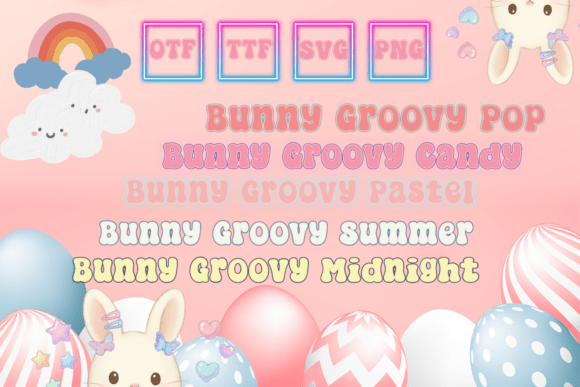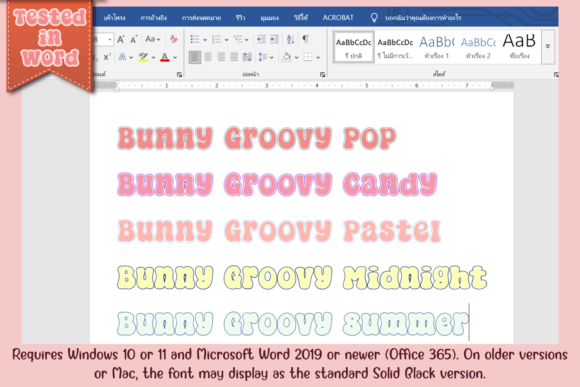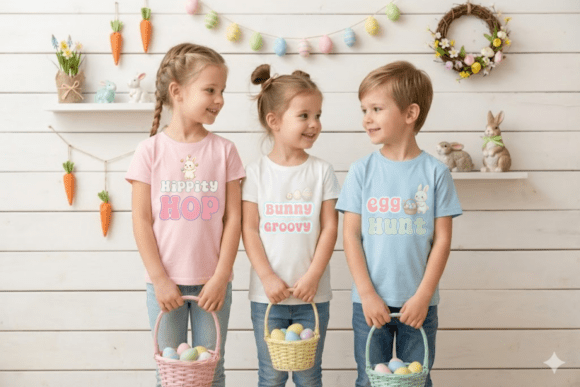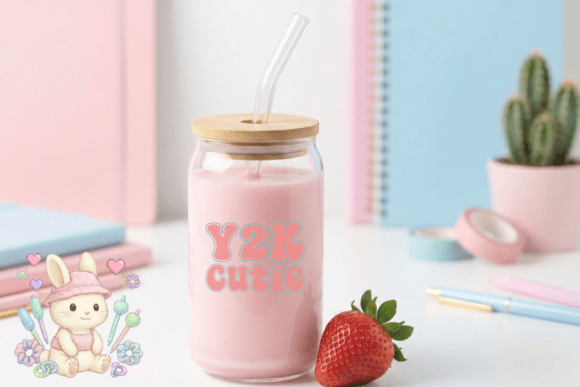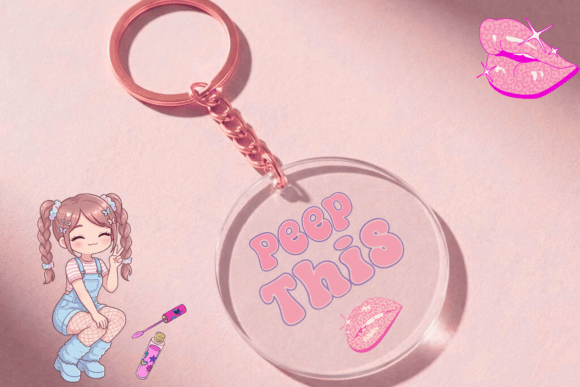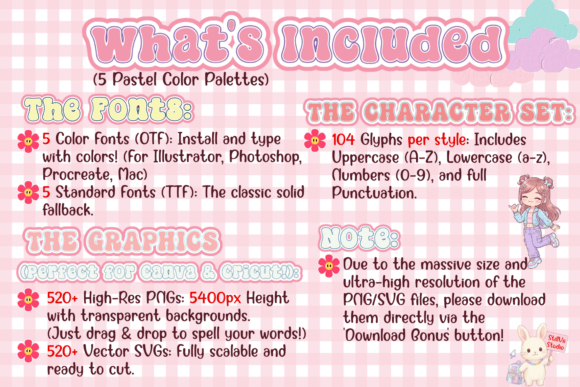
Spring into Design with the Bunny Groovy Pastel Font
Do you remember the excitement of decorating your room with colorful posters and stickers during spring break? The vibrant colors and playful vibes of the season still bring a smile to our faces. As designers, we’re always on the lookout for fresh inspiration to bring that same energy to our projects. That’s where the Bunny Groovy Pastel Font comes in – a dreamy collection of chubby color bubble fonts that will transport you back to the carefree days of Y2K.
With the Bunny Groovy Pastel Font, you’ll have access to 5 distinct pastel color palettes, each featuring 5 color fonts, standard fonts, high-res PNGs, and vector SVGs. Whether you’re a seasoned designer or a crafter looking to add a touch of whimsy to your creations, this bundle has got you covered. From trendy t-shirts to Easter crafts and classroom decor, the Bunny Groovy Pastel Font is the perfect addition to your design toolkit.
- Unique Characteristic: The font features a playful, pastel color scheme with a mix of bright and soft hues, adding a touch of whimsy to designs.
Bunny Groovy Pastel Font Review
As a designer, I was excited to dive into the Bunny Groovy Pastel Font and see what it had to offer. Here’s my honest review.
- Whimsical Feel – This font has a unique, playful vibe that’s perfect for projects that need a touch of nostalgia.
- Pastel Colors – The soft, pastel colors add a delicate touch to any design, making it suitable for feminine or child-friendly projects.
- High-Quality Files – The font files are well-designed and easy to work with, even for those who are new to font design.
- Limited Character Set – The font’s character set is relatively small, which may not be ideal for projects that require a wide range of characters.
- No Bold or Italic Variations – If you’re looking for a font with bold or italic variations, you may be disappointed with this one.
The Bunny Groovy Pastel Font is a charming addition to any designer’s toolkit. While it may have some limitations, its unique feel and high-quality files make it a great choice for the right projects. If you’re looking for a font to add a touch of whimsy to your designs, this one is definitely worth checking out.
The Bunny Groovy Pastel Font is ideal for:
- Children’s books and educational materials.